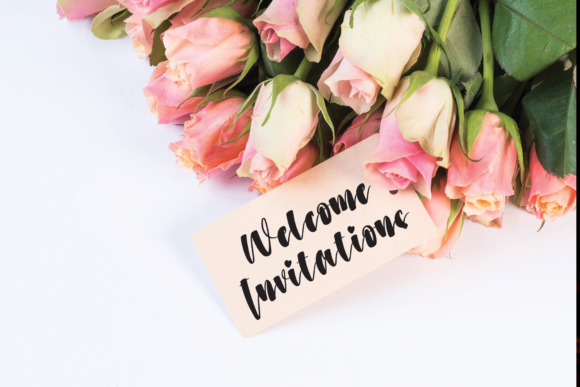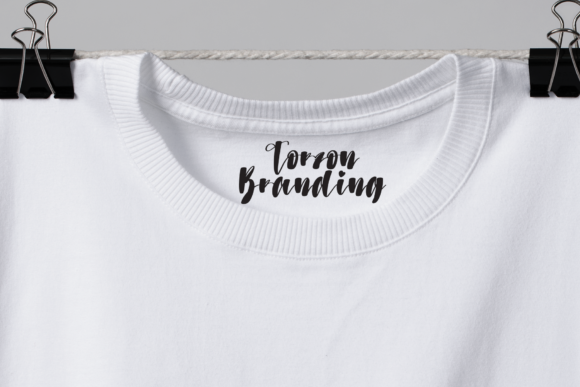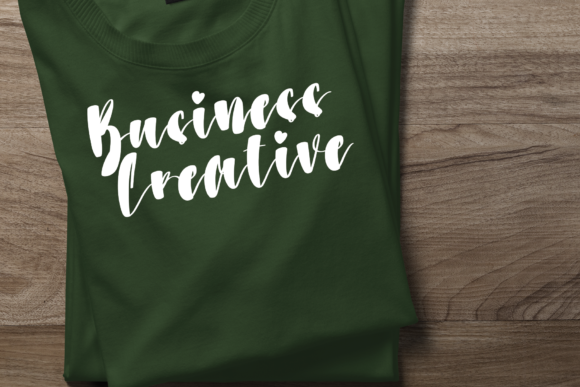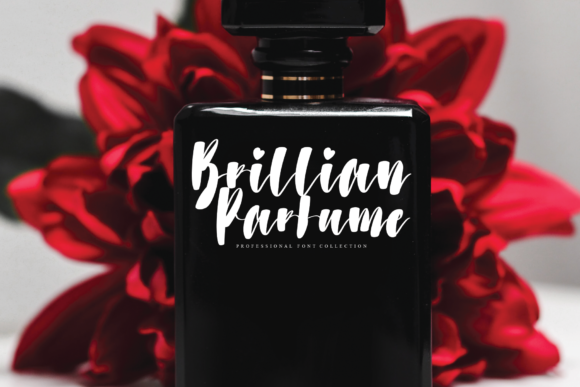
The Perfect Font for Your Next Creative Project: Camping School
Have you ever been working on a design project, and suddenly, you’re stuck on finding the perfect font? I recently had this experience while working on a wedding invitation design for a client. The invitation needed to be elegant, romantic, and personalized. That’s when I stumbled upon the beautiful Camping School font. In this article, I’ll share my experience with this lovely font, its features, and how to make the most of it in your designs.
A Personal Design Moment: Finding the Perfect Font
I was working on a wedding invitation design, and my client wanted a font that was sweet, delicate, and joyful. I had a few fonts in mind, but none of them seemed to fit the bill. That’s when I discovered Camping School. This beautiful handwritten font caught my attention with its dainty and romantic feel. I knew immediately that it was the perfect fit for my client’s project.
An Honest Review of Camping School Font
Here’s what I love about Camping School font:
- ✨ Sweet and delicate: This font is perfect for designs that require a touch of elegance and romance.
- ✅ Handwritten feel: The font has a beautiful, handwritten feel that adds a personal touch to any design.
- 🌸 Versatile: Camping School font can be used for a variety of design projects, from wedding invitations to cards and more.
While Camping School font is amazing, there are a few small quirks to keep in mind:
- 🤔 Limited use in bold text: While the font is beautiful in regular and light weights, it may not be the best choice for bold text.
- ⚠️ Some letters may require manual kerning: As with any font, some letters may require manual kerning to achieve the perfect spacing.
The Story Behind Camping School Font
Camping School font was designed with love and care by a talented font designer. The font is inspired by the beauty of nature and the joy of the great outdoors. The designer aimed to create a font that was sweet, delicate, and joyful – perfect for designs that require a touch of romance and elegance.
Q: What is Camping School font best used for?
A: Camping School font is best used for designs that require a touch of elegance and romance, such as wedding invitations, cards, and other personalized designs.
Q: Is Camping School font available in different weights?
A: Yes, Camping School font is available in different weights, including regular and light weights.